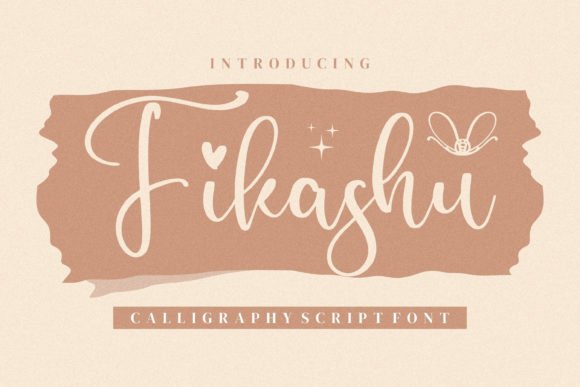
The Perfect Script Font for Your Next Project: Fikashu Font
Have you ever sat in front of your computer, staring at a blank screen, trying to come up with the perfect font to match your design concept? I’m sure many of us have been there. For me, it’s the moment when everything comes together – the perfect combination of style, elegance, and sophistication. And that’s exactly what the Fikashu Font is all about.
This chic, refined script font is a game-changer for designers who want to add a touch of class to their projects. With its stylish alternates and ligatures, the Fikashu Font is the perfect match for any design. And with its PUA encoding, you can access all glyphs and swashes with ease, giving you complete control over your design. Whether you’re working on a wedding invitation, a branding project, or a marketing campaign, the Fikashu Font is sure to elevate your design to the next level.
- Font Type: Script Font, a unique and elegant handwriting-style font.
- Unique Characteristics: Fikashu Font features beautiful, flowing connections between letters, giving it a distinctive and elegant appearance.
Fikashu Font Review
Overall, I think Fikashu Font is a decent addition to any font library. It’s a beautiful, cursive script font that can add a touch of elegance to any design project. ✨ The font’s flowing lines and curves make it perfect for use in invitations, wedding stationery, and other formal events.
Here are some of the things I like about Fikashu Font:
- ✨ High-quality design: The font is well-crafted and has a professional look.
- ✨ Versatile: It can be used in a variety of contexts, from formal to casual.
- ✨ Good legibility: The font is easy to read, even at smaller font sizes.
- ⚠️ Limited language support: The font may not be compatible with languages that use non-Latin scripts.
- ⚠️ May not be suitable for body text: The font’s flowing lines can make it difficult to read large blocks of text.
Overall, I think Fikashu Font is a great choice for designers who want to add a touch of elegance to their projects. While it may have some limitations, its high-quality design and versatility make it a valuable addition to any font library.
To get the most out of the Fikashu font, use it for:
- Wedding and event branding.
- Gift tags and labels.
- Any design project that requires a touch of elegance and sophistication.
The Fikashu font is commonly used for:
- Wedding and event invitations.
- Gift tags and labels.
- Watercolor backgrounds: Add a soft, dreamy quality to your artwork by pairing Fikashu Font with watercolor backgrounds.
- Hand-drawn illustrations: Use Fikashu Font to add a touch of whimsy and personality to your illustrations.
- Gold leaf accents: Add a touch of luxury and sophistication to your design by pairing Fikashu Font with gold leaf accents.
- Geometric shapes: Use geometric shapes, such as triangles and circles, to add a touch of modernity and
Create a striking typographic poster that showcases the unique characteristics of the Fikashu Font. Use the font to create bold, eye-catching headlines and body text that add a touch of elegance to your design.